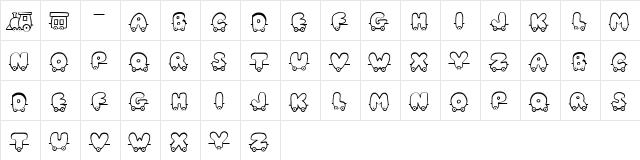
JI Toy Train Font Preview
JI Toy Train JI Toy Train
JI Toy Train Font Details
| Style | JI Toy Train |
| Designer | Jeri Ingalls |
Design Context for JI Toy Train Typeface
JI Toy Train is a composed and adaptable typeface that performs quietly and consistently across a wide range of design contexts.